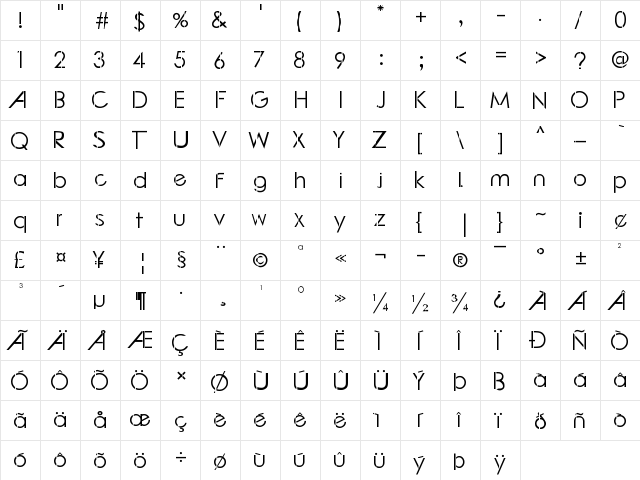
LJ Studios GF Regular
| Foundry | LJ-Design Studios |
| Designer | Luis Jaramillo |
Design Context for LJ Studios GF Typeface
LJ Studios GF takes a measured approach to typography — its balanced proportions and neutral character make it a reliable workhorse for both digital and print work.